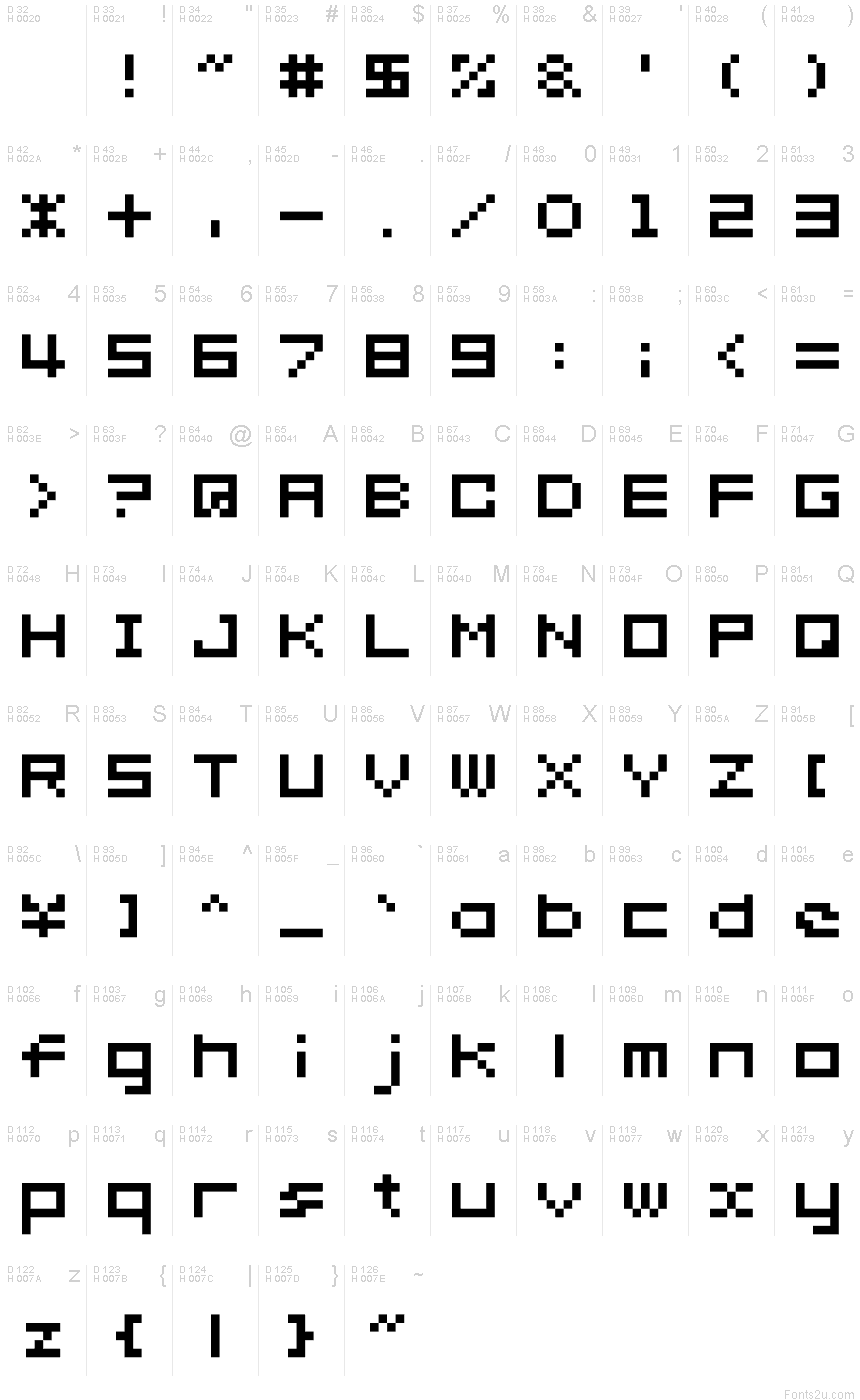
somybmp02_7
Somybmp02 7 by Kazuki Takada is a free bitmap font with a blunt, low-resolution rhythm that feels lifted from an early screen interface. The letters are built from chunky square steps and long horizontal runs, giving the font a blocky, slightly maze-like texture that keeps it playful rather than slick.
It fits game menus, retro tech posters, zine headings, label systems, and title cards where that coarse digital snap is part of the point. As a free font, it also makes sense for short web graphics, stream overlays, and compact logos that want the old-monitor mood without drifting into cute nostalgia.